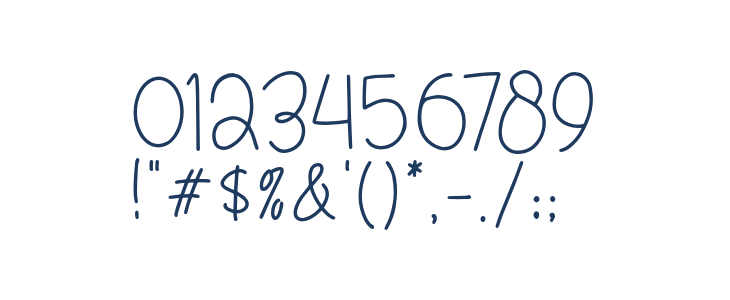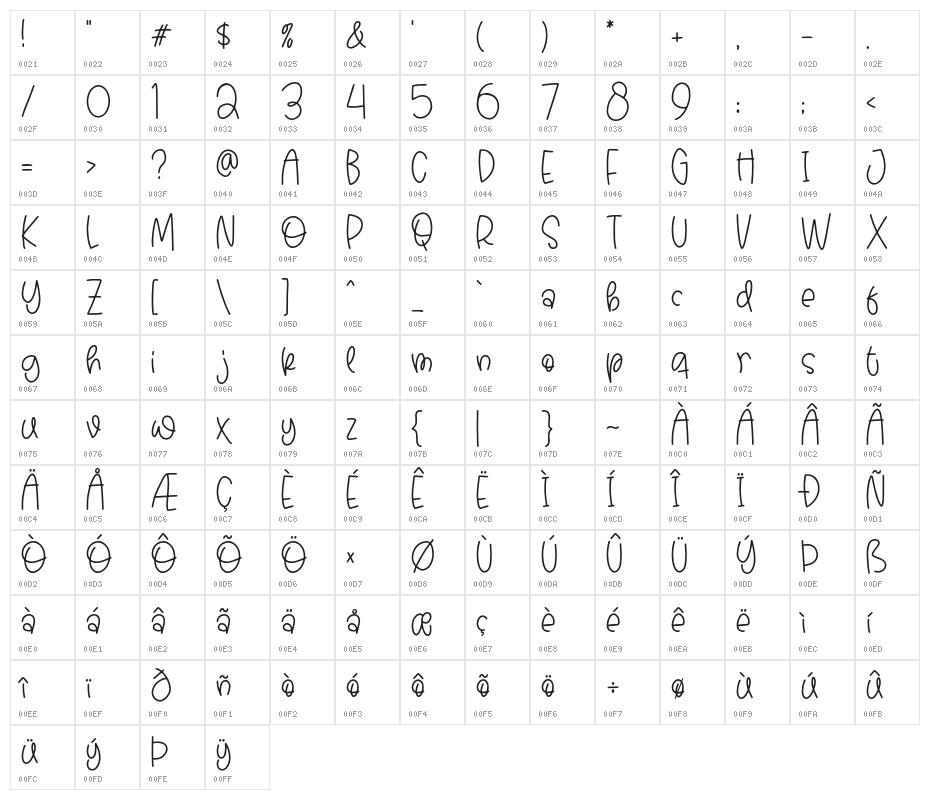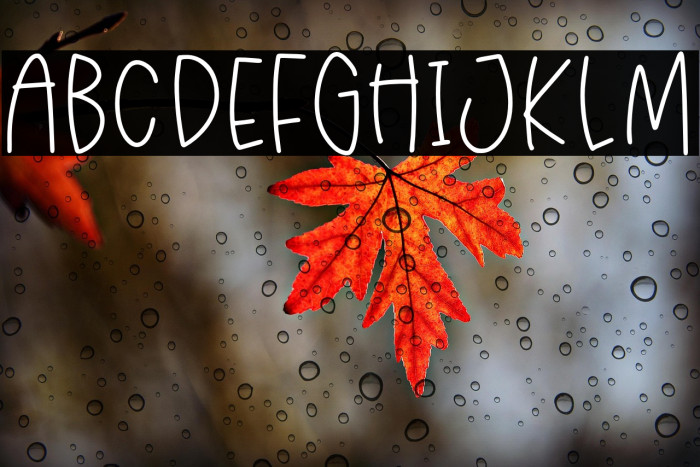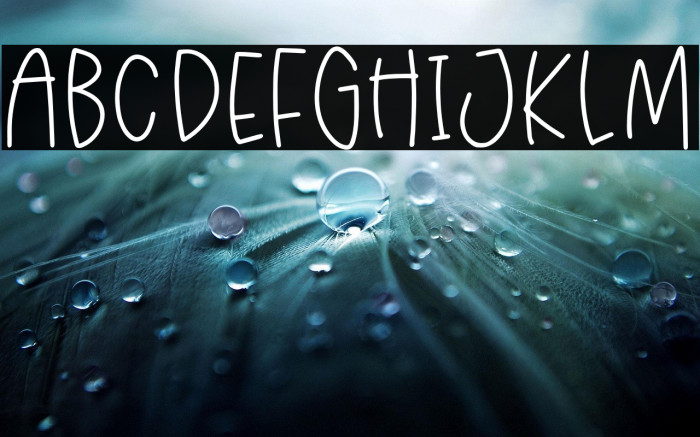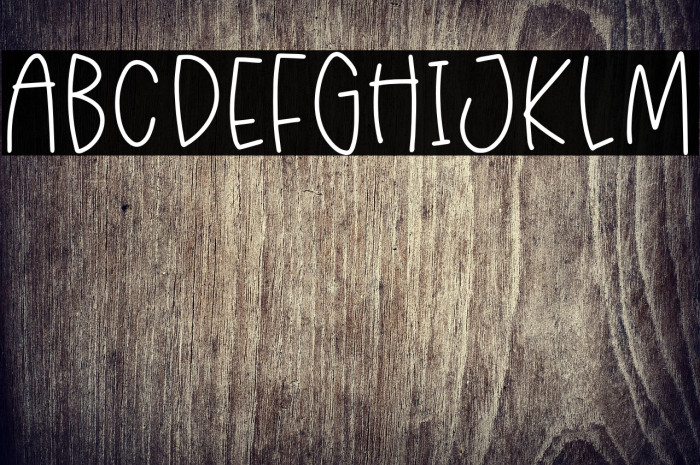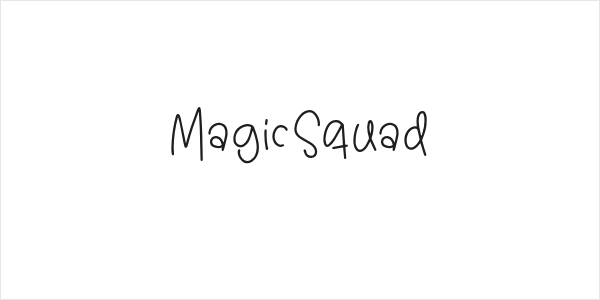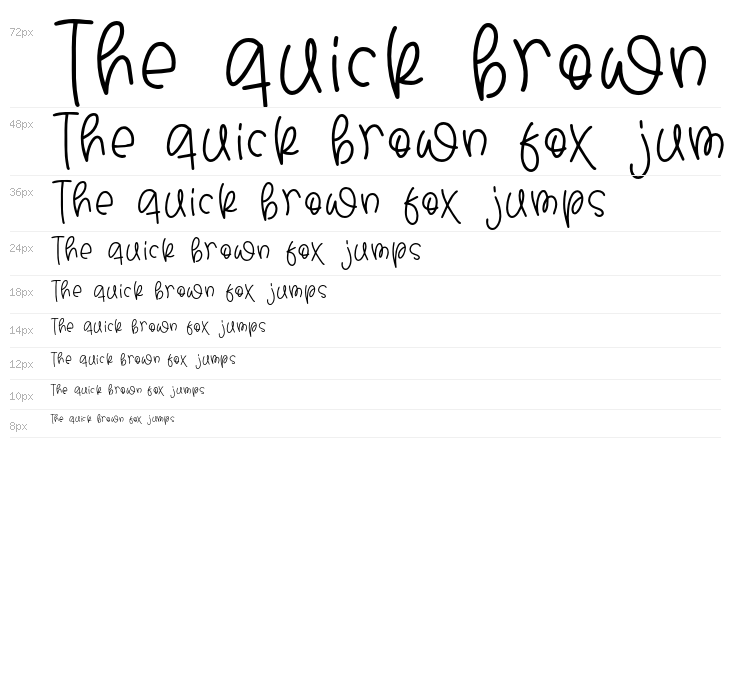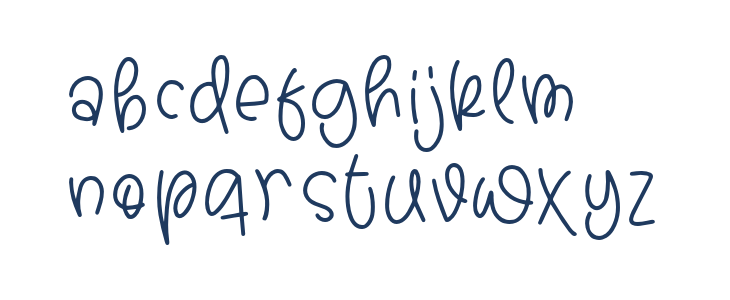
MagicSquad Font
MagicSquad Description
This playful and whimsical font features a handwritten style with a casual and friendly appearance. The letters are slightly irregular, giving it a natural and organic feel. The strokes are consistent in width, providing a uniform look across all characters. The uppercase and lowercase letters maintain a cohesive style, with rounded edges and a slight tilt that adds to its charm. The numerals and special characters follow the same playful design, making it versatile for various uses. Its informal nature makes it suitable for projects that aim to convey a sense of fun and approachability.
| Overall Style | Playful |
| Use Case | Headlines, Logos, Informal Text |
| Proposed Projects | Ideal for children's books, greeting cards, playful branding, and informal invitations. |